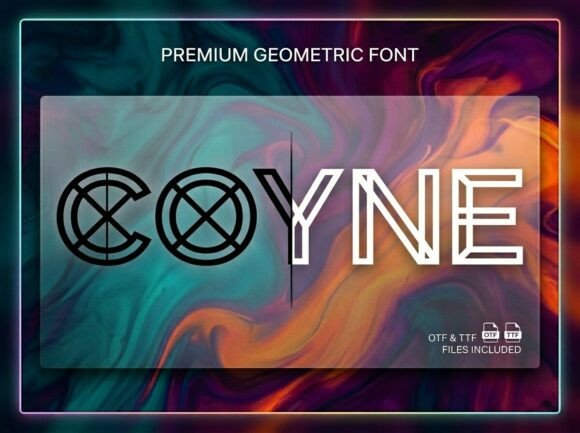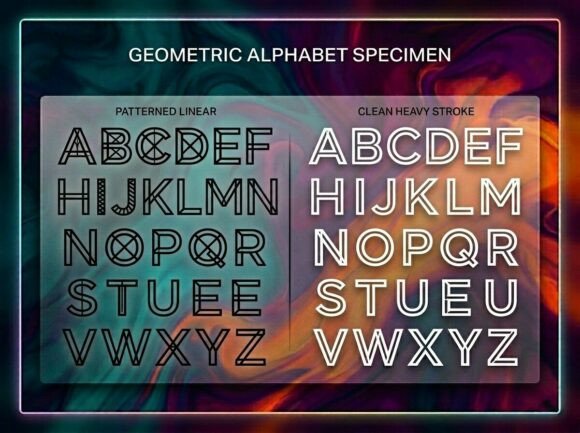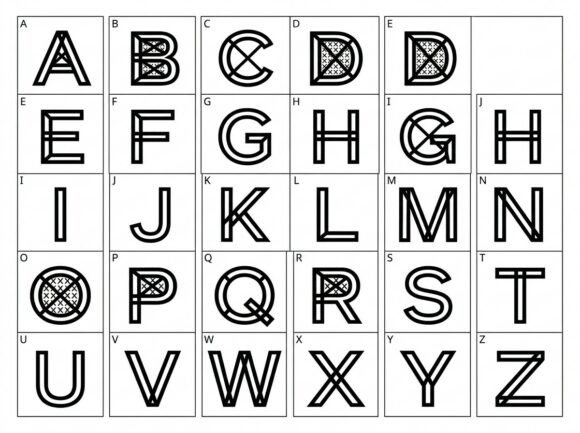
Introducing Coyne Font: Elevate Your Visual Identity with Precision and Modern Impact
In the world of typography, a well-crafted font can make all the difference in elevating your brand’s visual identity. For designers and crafters seeking a typeface that exudes modernity, sophistication, and precision, look no further than Coyne Font. This premium geometric display font is specifically designed to make a statement, boasting a unique blend of linear construction, technical outlines, and strategic internal cross-hatching.
The Design Philosophy Behind Coyne
Coyne Font’s design philosophy revolves around the perfect marriage of form and function. Its sophisticated linear construction ensures that each character is defined by a clean, technical outline, providing a sense of precision and accuracy. The strategic internal cross-hatching adds a layer of depth and dimensionality, making the font feel both minimal and intricate. This balance of simplicity and complexity is what sets Coyne apart from other geometric display fonts.
Unique Features of Coyne Font
One of the standout features of Coyne Font is its use of unique “X” motifs and beveled architectural details. These design elements evoke a sense of high-end engineering and futuristic design, making Coyne an exceptional choice for tech-focused branding, urban architectural logos, innovative startup headers, and sci-fi gaming titles. The font’s balanced, monoline structure ensures excellent legibility, even at smaller sizes, making it versatile for use across various mediums.
Applications for Coyne Font
Coyne Font’s versatility and precision make it an excellent choice for a wide range of applications. Some of the ideal uses for Coyne include:
- Tech-focused branding: Coyne’s futuristic design and precision engineering make it perfect for tech startups, software companies, and innovative enterprises.
- Urban architectural logos: The font’s beveled architectural details and linear construction evoke a sense of modernity and sophistication, making it ideal for architectural firms and urban development projects.
- Innovative startup headers: Coyne’s unique design elements and balanced structure make it an excellent choice for startup companies looking to make a bold statement.
- Sci-fi gaming titles: The font’s futuristic design and high-tech aesthetic make it a natural fit for sci-fi gaming titles and futuristic narratives.
Why Choose Coyne Font?
So, why choose Coyne Font over other geometric display fonts? Here are just a few reasons:
- Precision engineering: Coyne’s linear construction and technical outlines ensure a level of precision and accuracy that’s hard to find in other fonts.
- Modern impact: The font’s unique design elements and balanced structure make it perfect for making a bold statement in modern designs.
- Versatility: Coyne’s legibility and aesthetic make it suitable for use across various mediums, from digital platforms to print media.
- High-end aesthetic: The font’s sophisticated design and futuristic elements evoke a sense of high-end engineering and luxury.
In conclusion, Coyne Font is an exceptional choice for designers and crafters looking to elevate their visual identity with precision and modern impact. Its unique blend of linear construction, technical outlines, and strategic internal cross-hatching makes it a standout in the world of geometric display fonts. With its versatility, legibility, and high-end aesthetic, Coyne is the perfect choice for tech-focused branding, urban architectural logos, innovative startup headers, and sci-fi gaming titles. Upgrade your typography with Coyne Font today and experience the power of precision engineering in your designs.